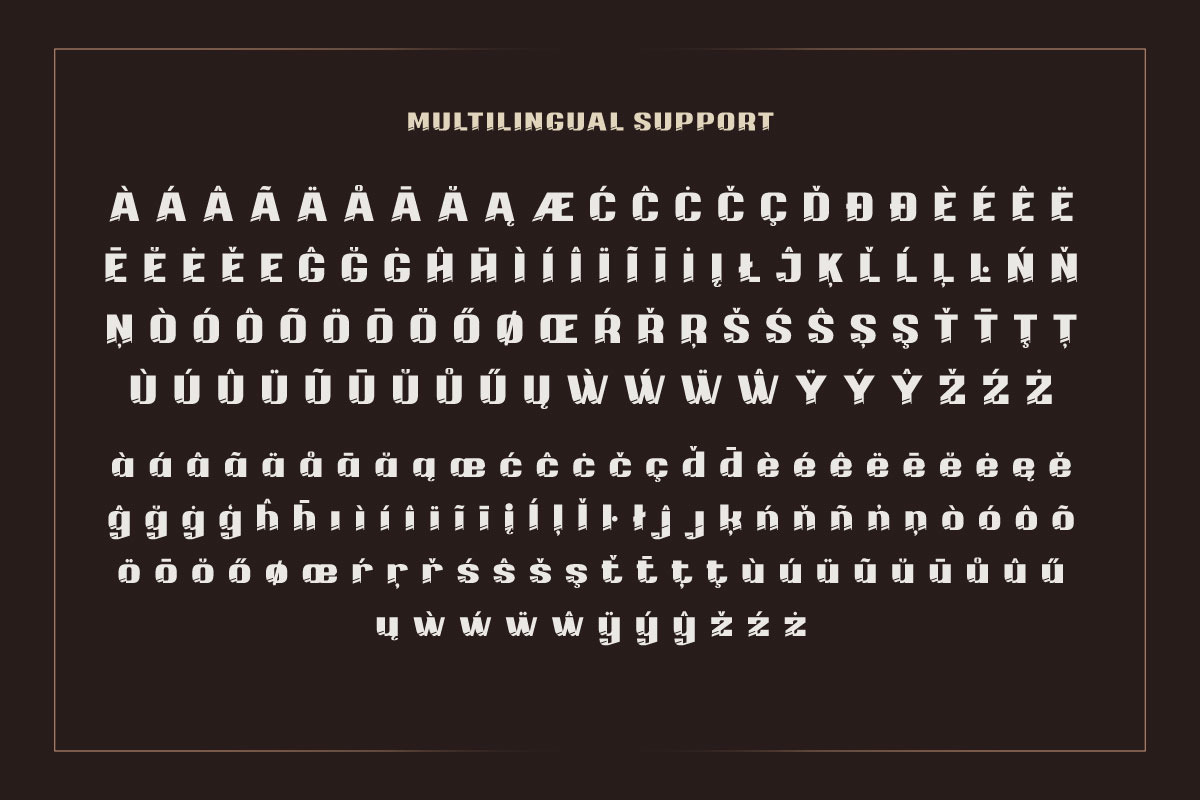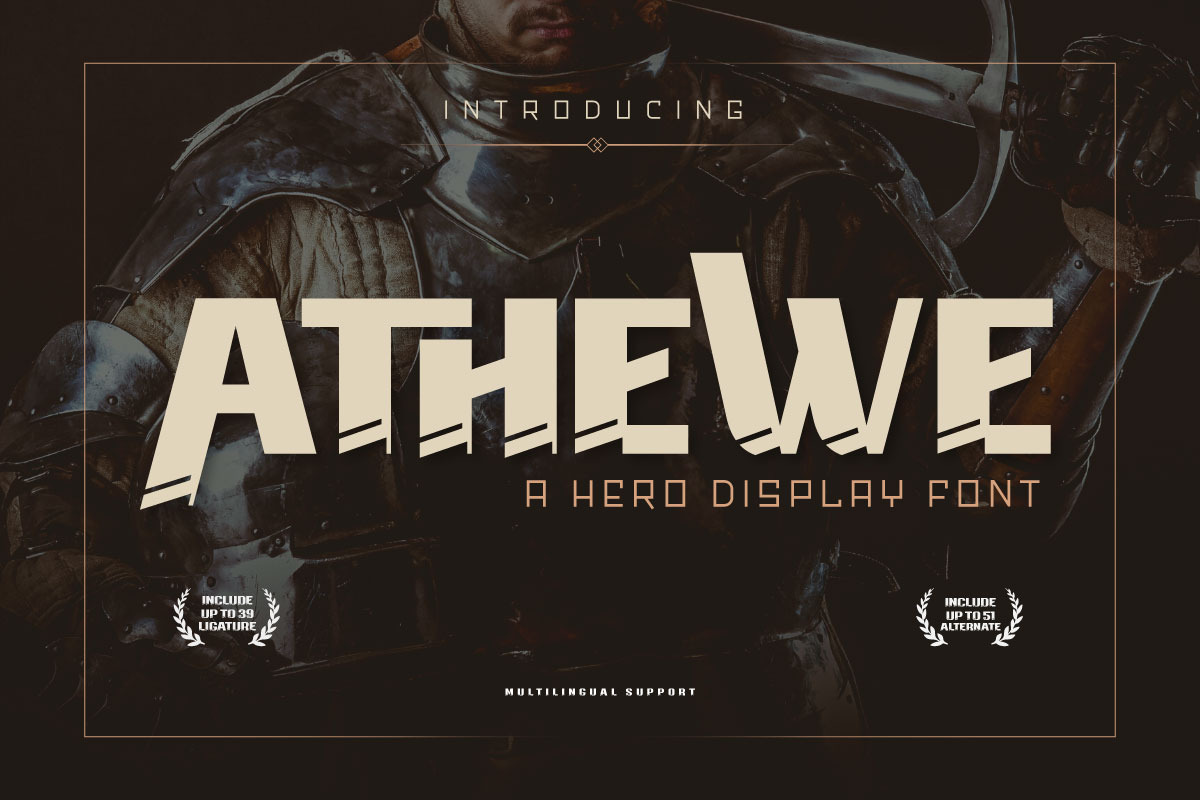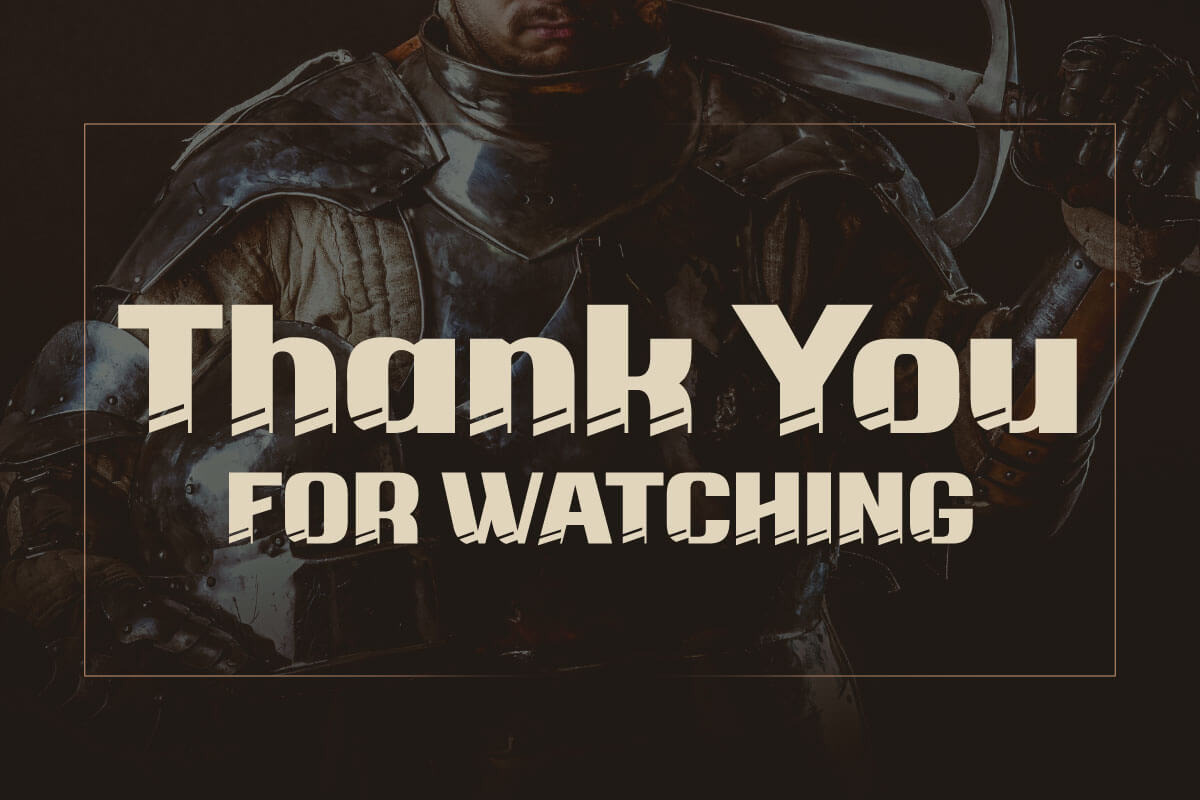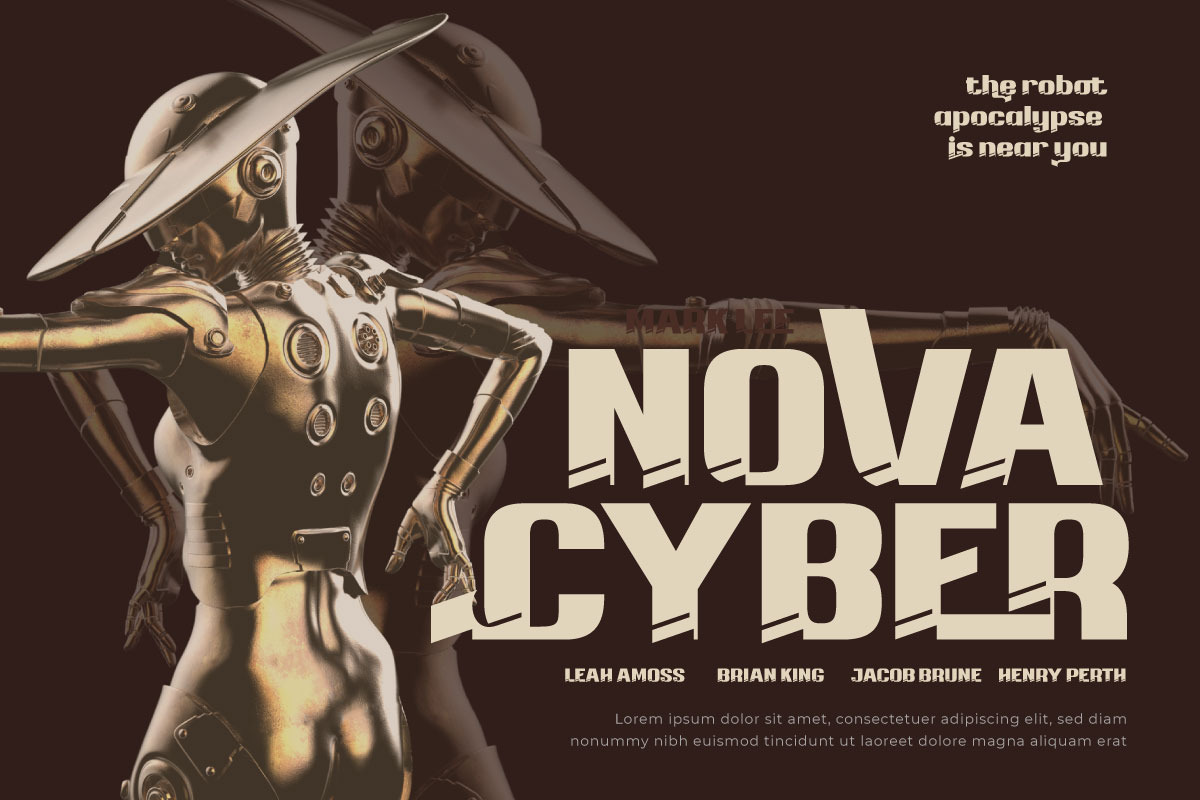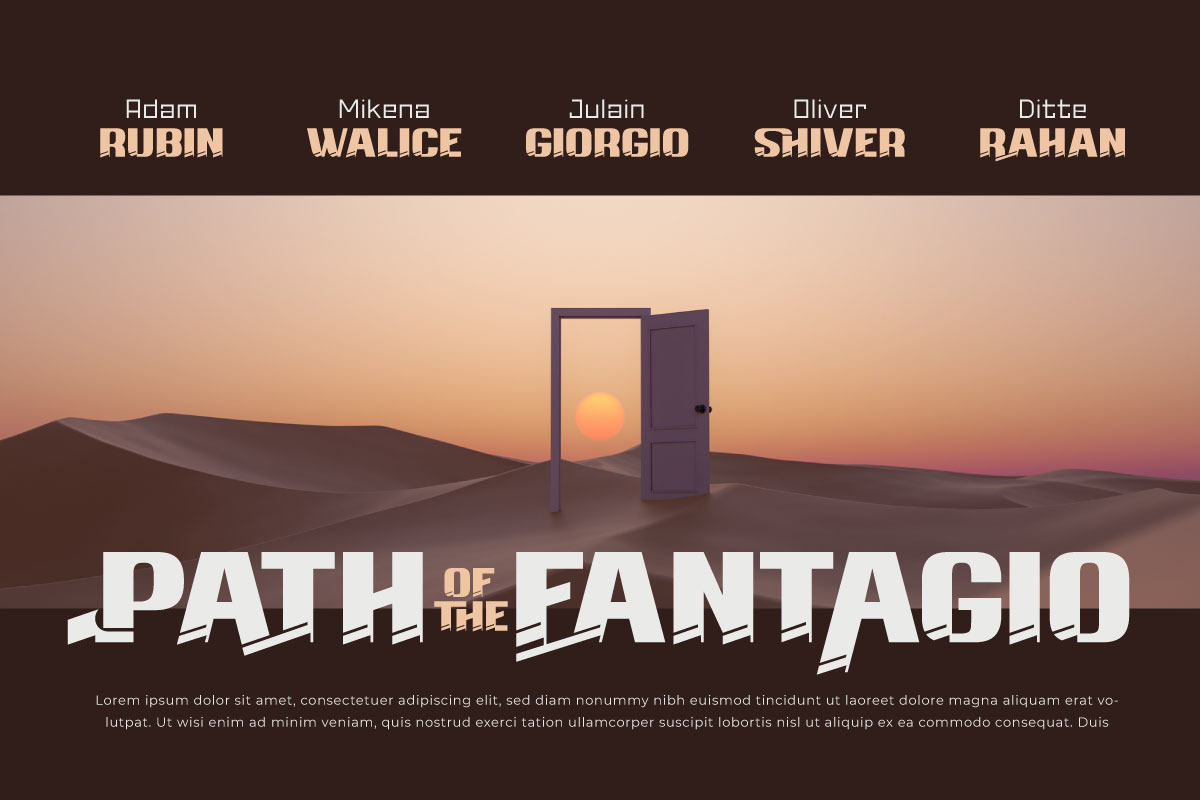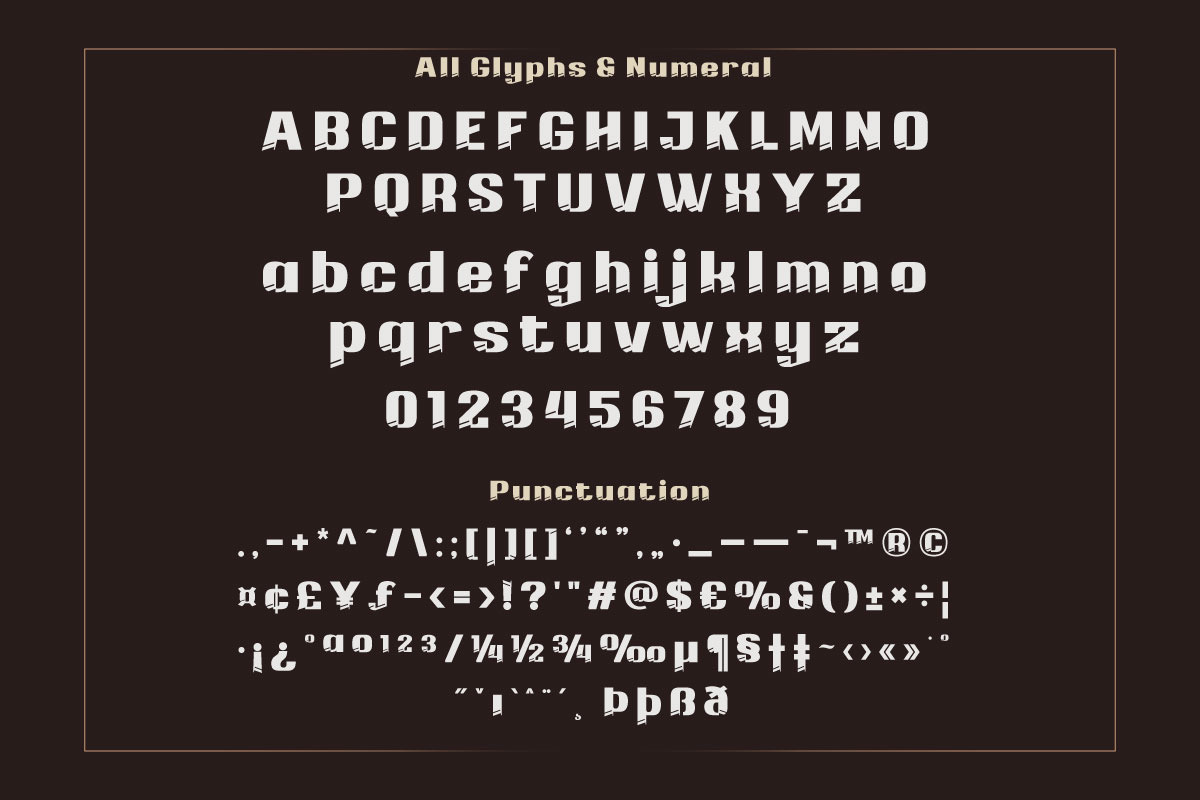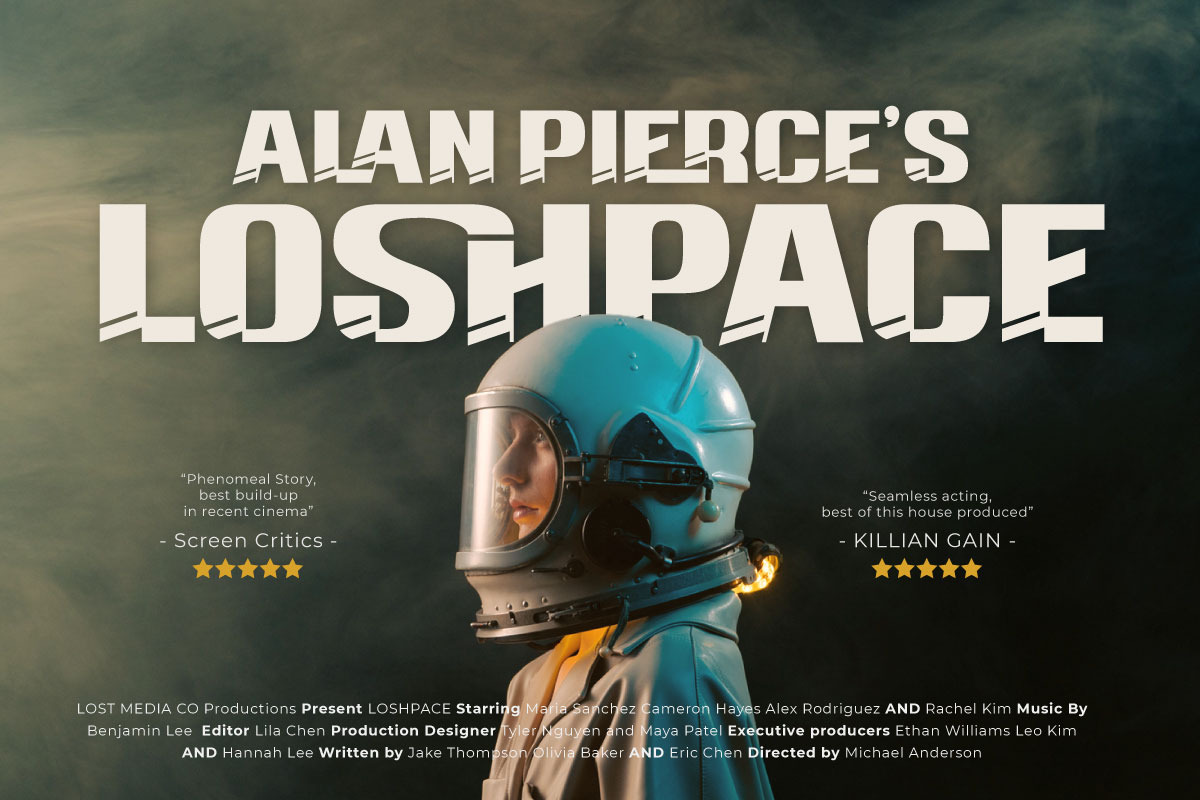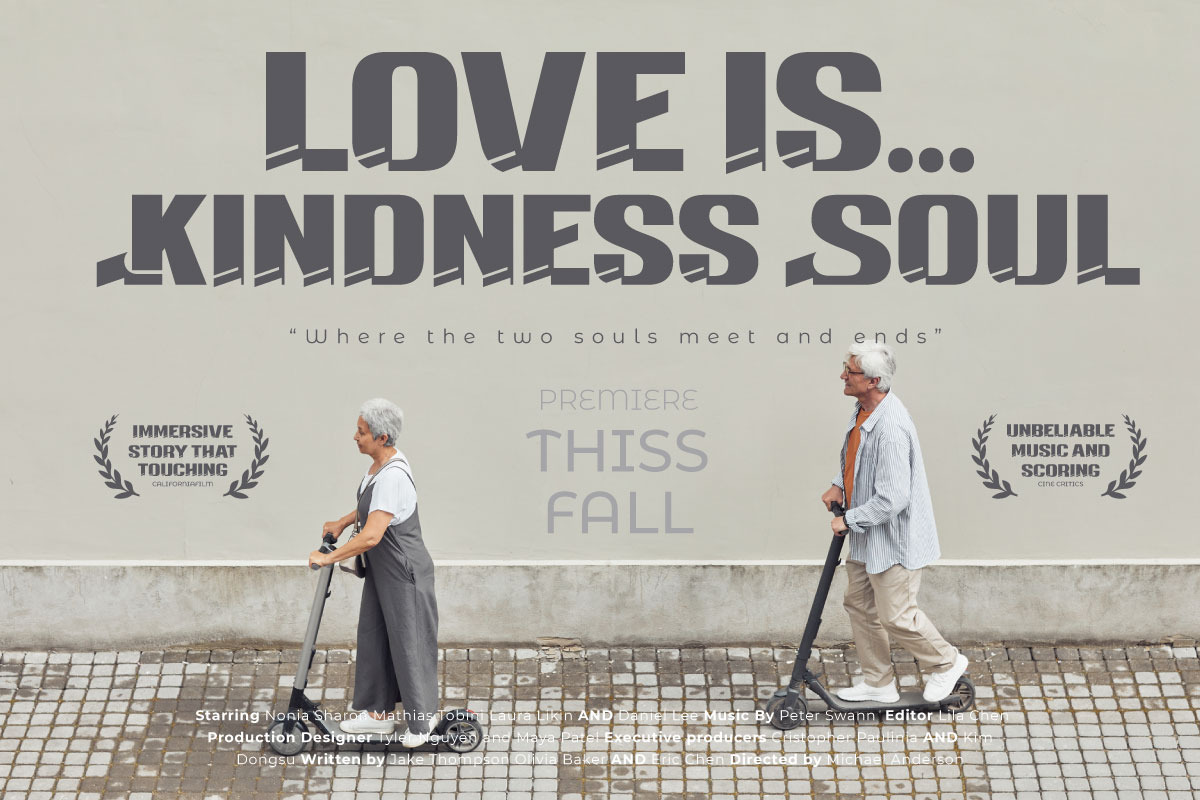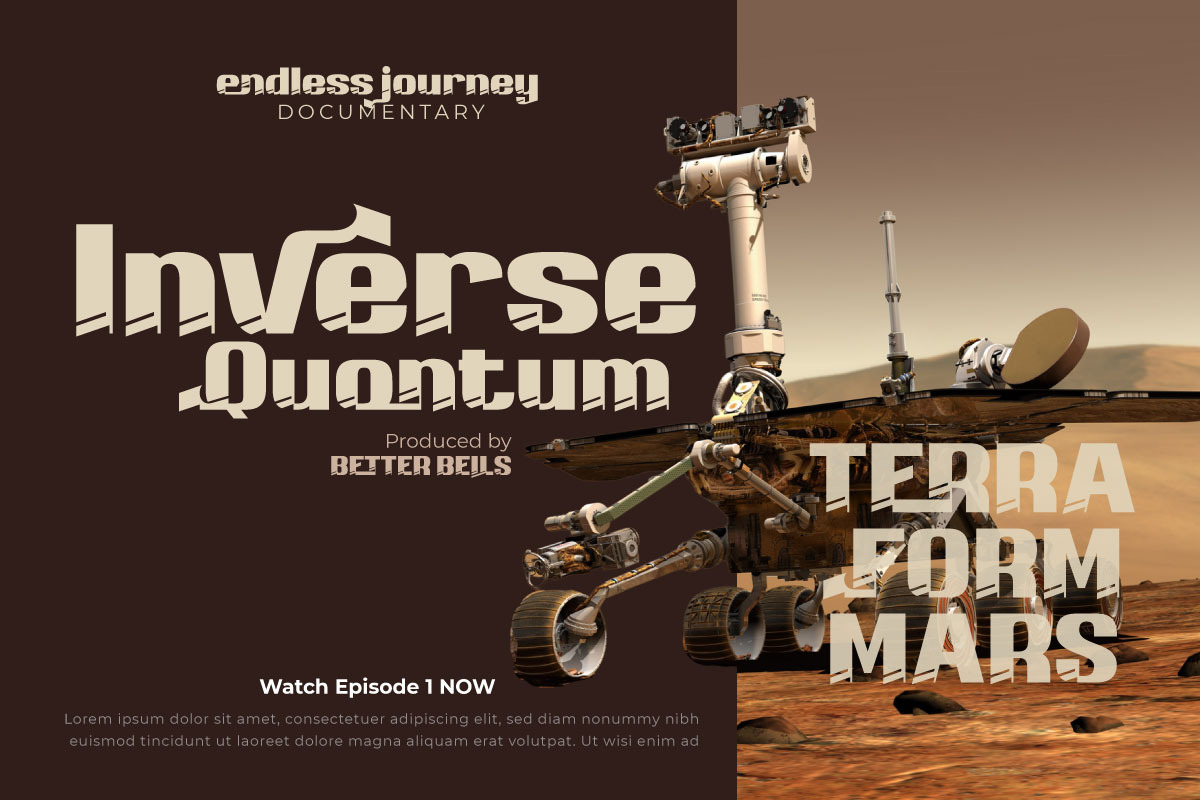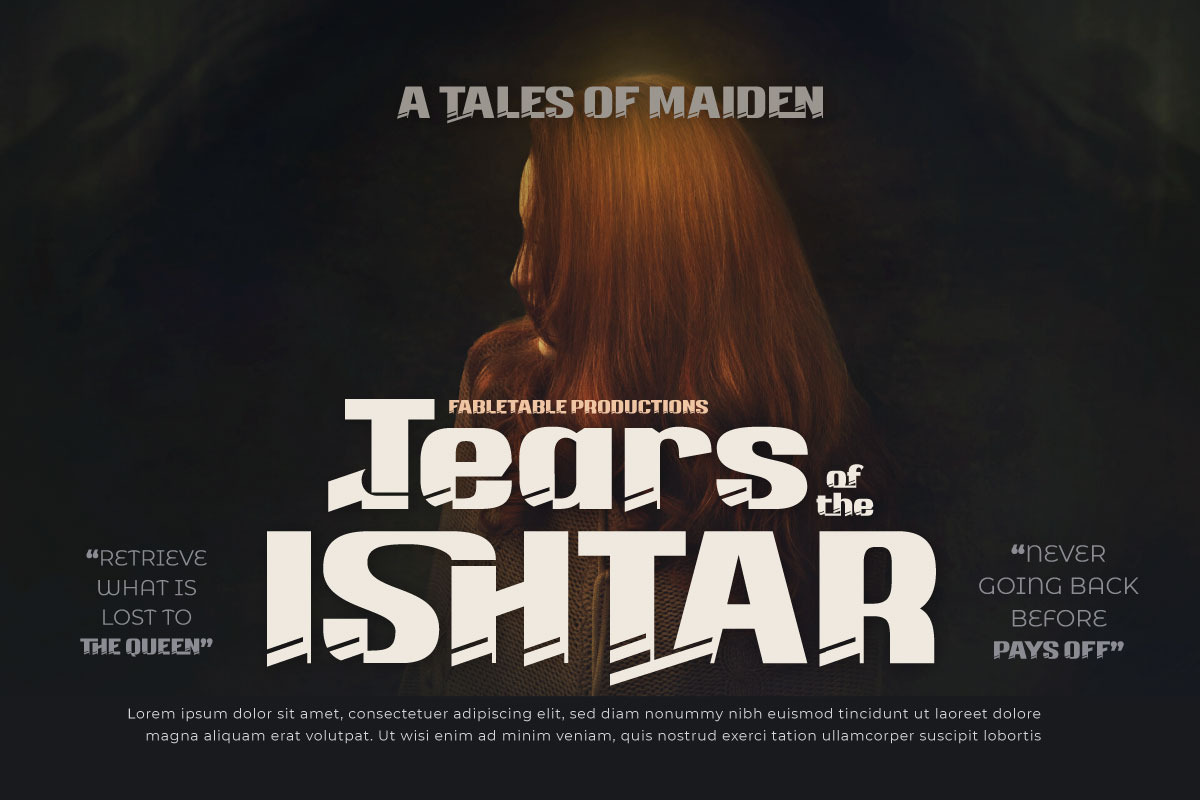
ATHEWE | Display Hero Font
Athewe is a display font with a strong and courageous superhero theme. Created specifically for projects that require a bold, impressive impression, this font is the perfect solution for creating bold and bold designs.
With Athewe, you can bring an awesome superhero feel to any of your projects. This font brings strength and boldness to your designs, creating a look that is both impressive and full of character. Each letter expresses a strong and daring style, delivering a memorable message to your audience.
With features such as ligature and alternate, Athewe provides unlimited flexibility and creativity. You can combine these font elements to create unique and interesting variations of the style. In addition, multilingual support allows you to use Athewe in multiple languages, so your project can reach a global audience.
If you’re looking for an alluring, powerful, and superhero-themed font, Athewe is the right choice. With a striking style and features that allow for creative experimentation, this font will catch the eye and inspire your potential customers.
- Alternate, Ligature